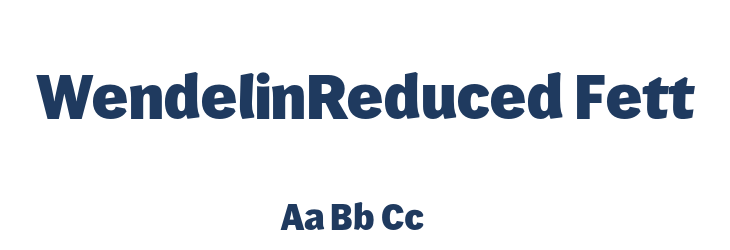
WendelinReduced-Fett Font
A bold, high-contrast font with a modern and impactful style.
Nunito ExtraLight Font
A modern, clean sans-serif font with uniform stroke width and excellent readability.
Black Coffee-Regular Font
A playful, handwritten-style font with bold, consistent strokes.
Lekhana Font
A classic serif font with elegant slant and fluidity.
Merriweather Sans Light Font